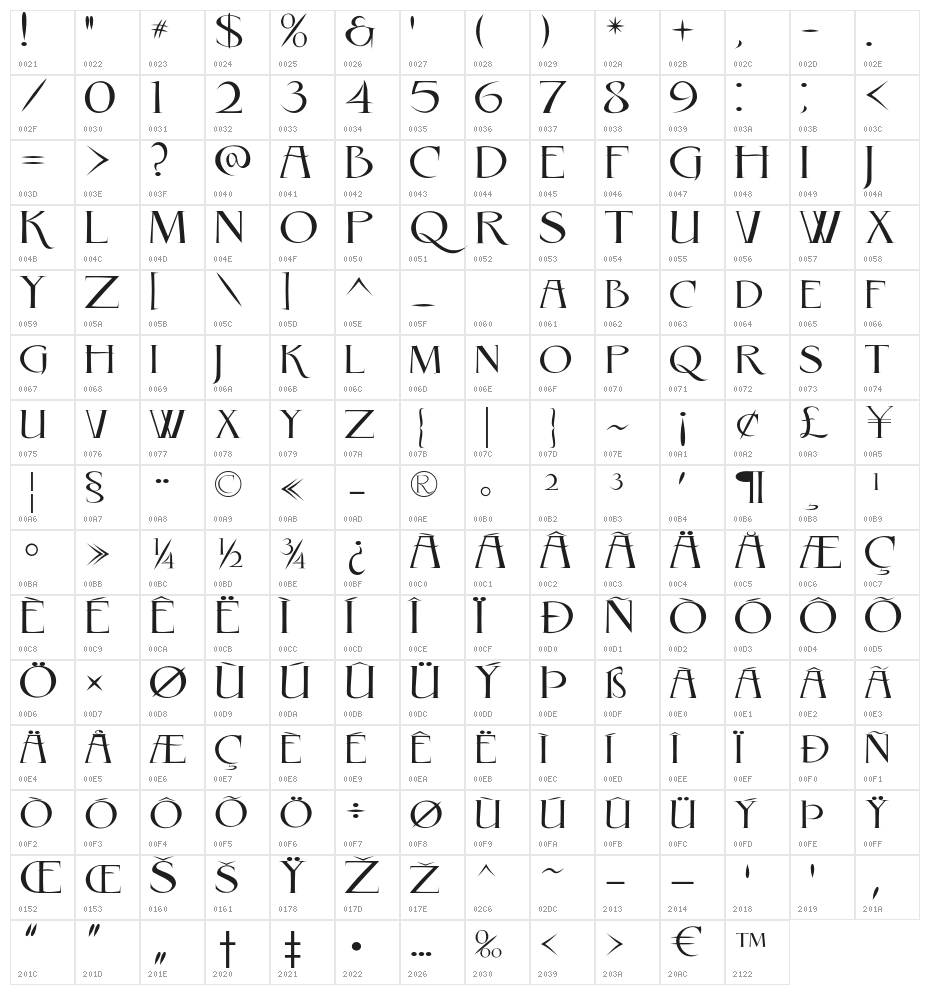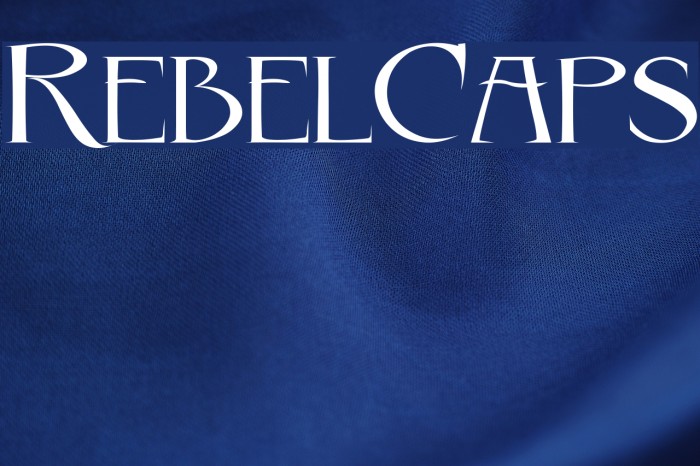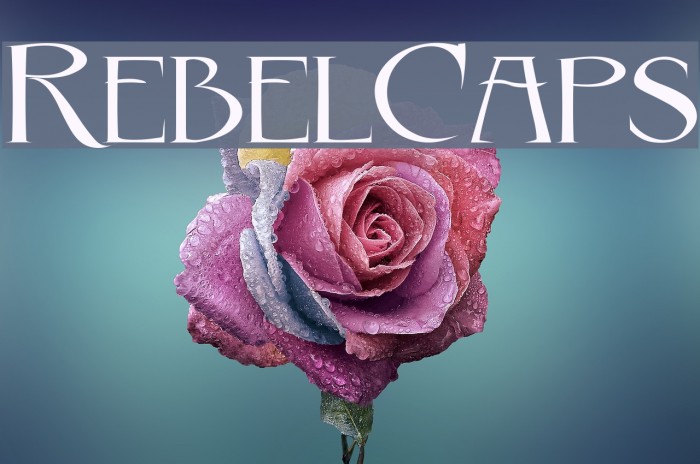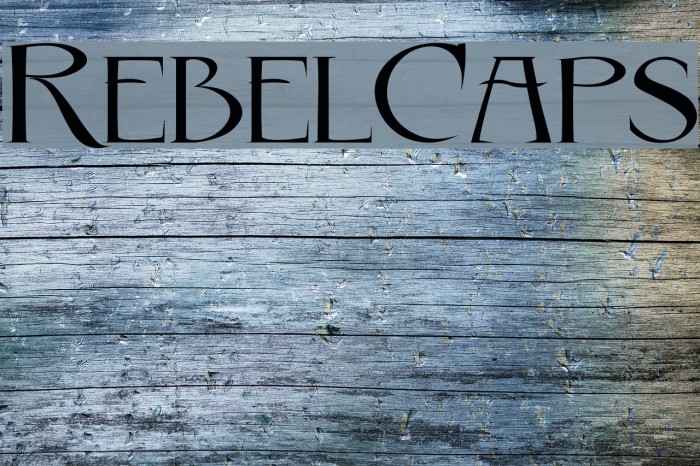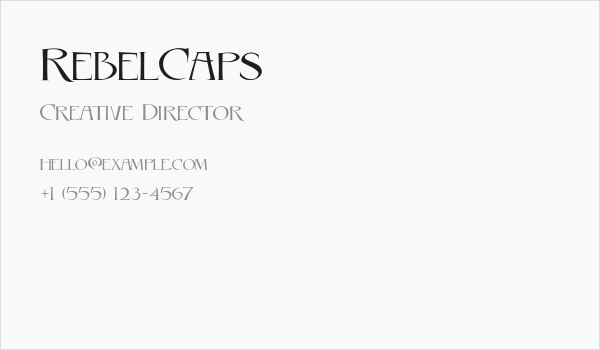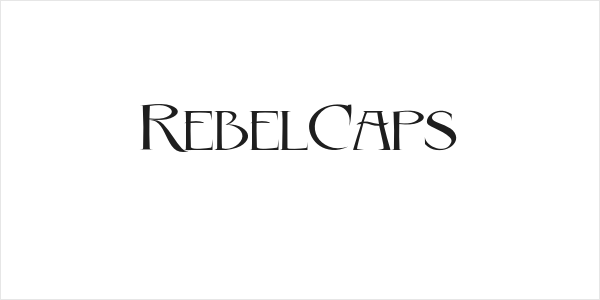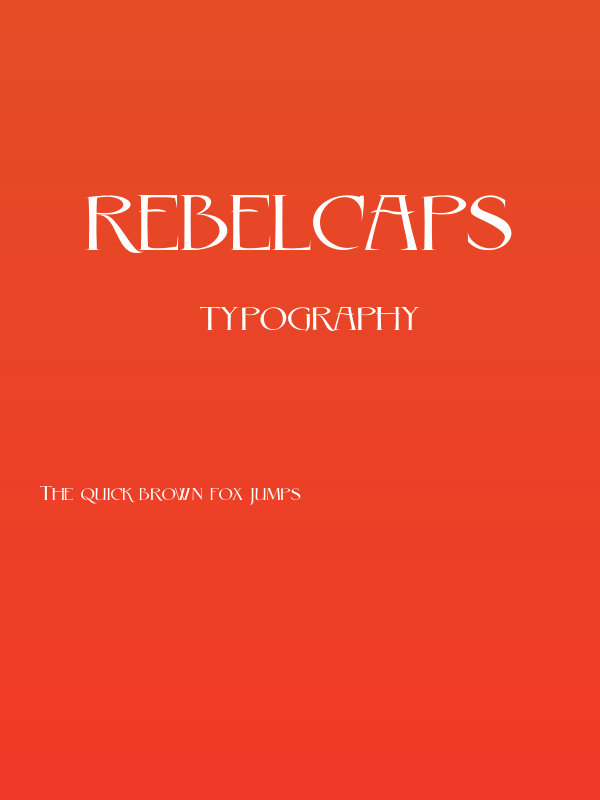
RebelCaps Font
RebelCaps Description
This font features a unique and artistic style with sharp, angular serifs and a distinct flair in its strokes. The uppercase letters exhibit a dramatic presence with elongated verticals and pointed edges, creating a sense of elegance and sophistication. The lowercase letters maintain this aesthetic with a slightly more subdued approach, offering a harmonious balance. Numbers are crafted with the same attention to detail, ensuring consistency across all characters. Special characters are designed to complement the overall style, making this font versatile for various applications. The font's design is reminiscent of calligraphic influences, yet it maintains a modern edge, making it suitable for both traditional and contemporary projects.
| Proposed Projects | Ideal for branding, editorial design, invitations, and any project requiring a touch of elegance and sophistication. |